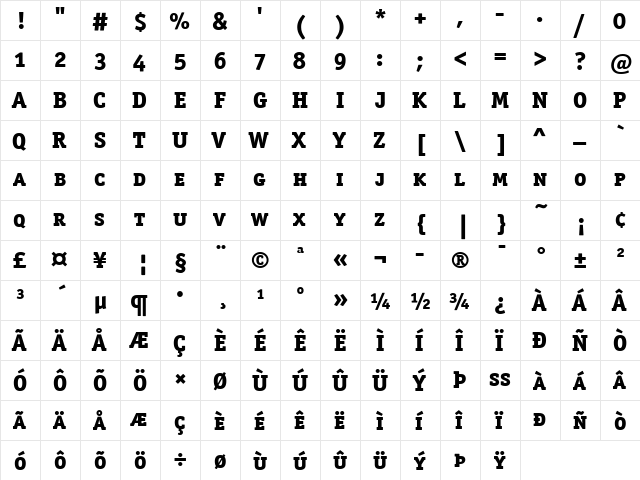
OfficinaSerITC Bold Font Preview
OfficinaSerITC Bold
OfficinaSerITC Bold Font Details
| Foundry | \(c\) International Typeface Corporation and by Erik Spiekermann, Ole Schaefer |
Design Context for OfficinaSerITC Typeface
OfficinaSerITC offers clean, dependable letterforms without strong stylistic allegiance, making it a practical choice for designers who need flexibility. Its bold stroke weight gives it real presence on the page.